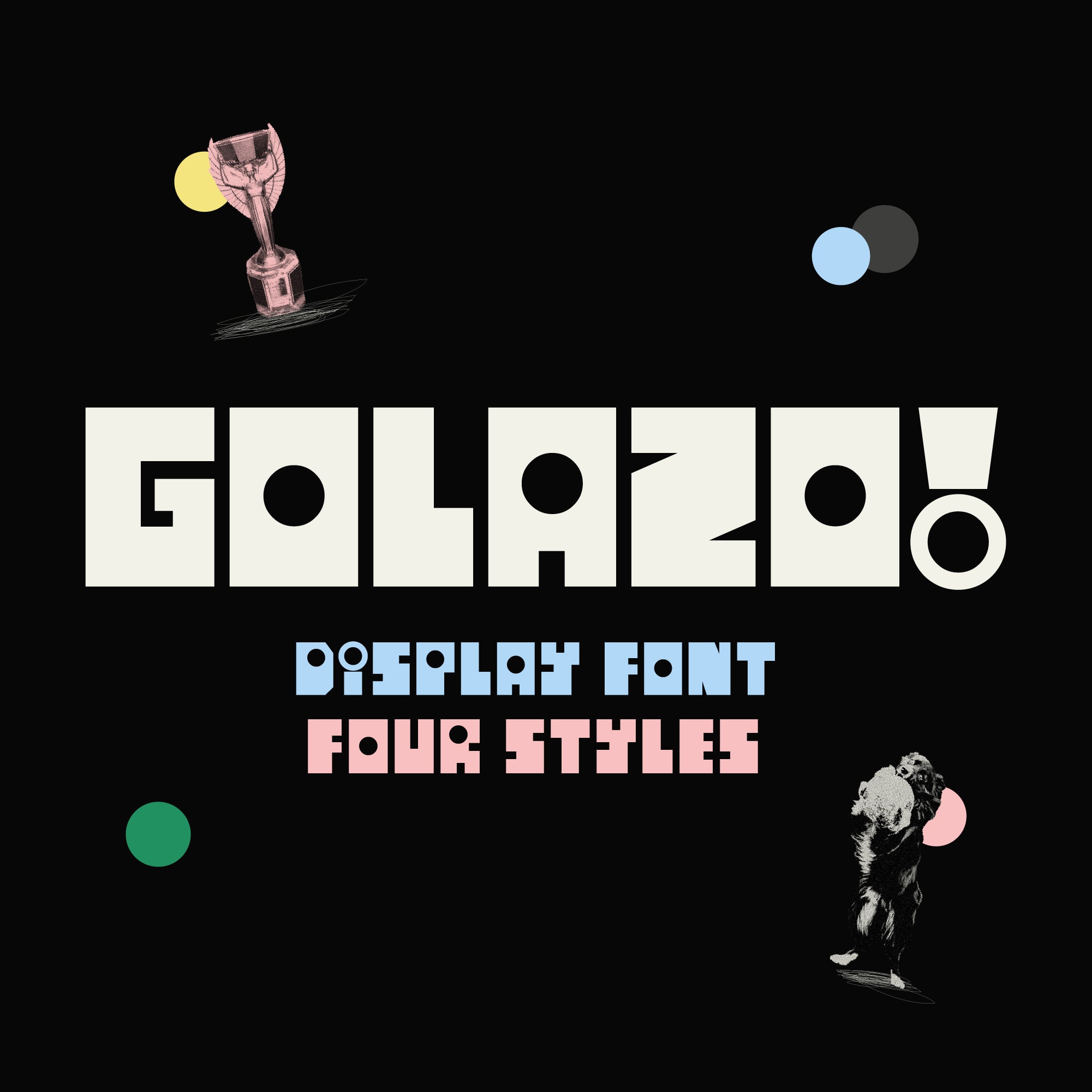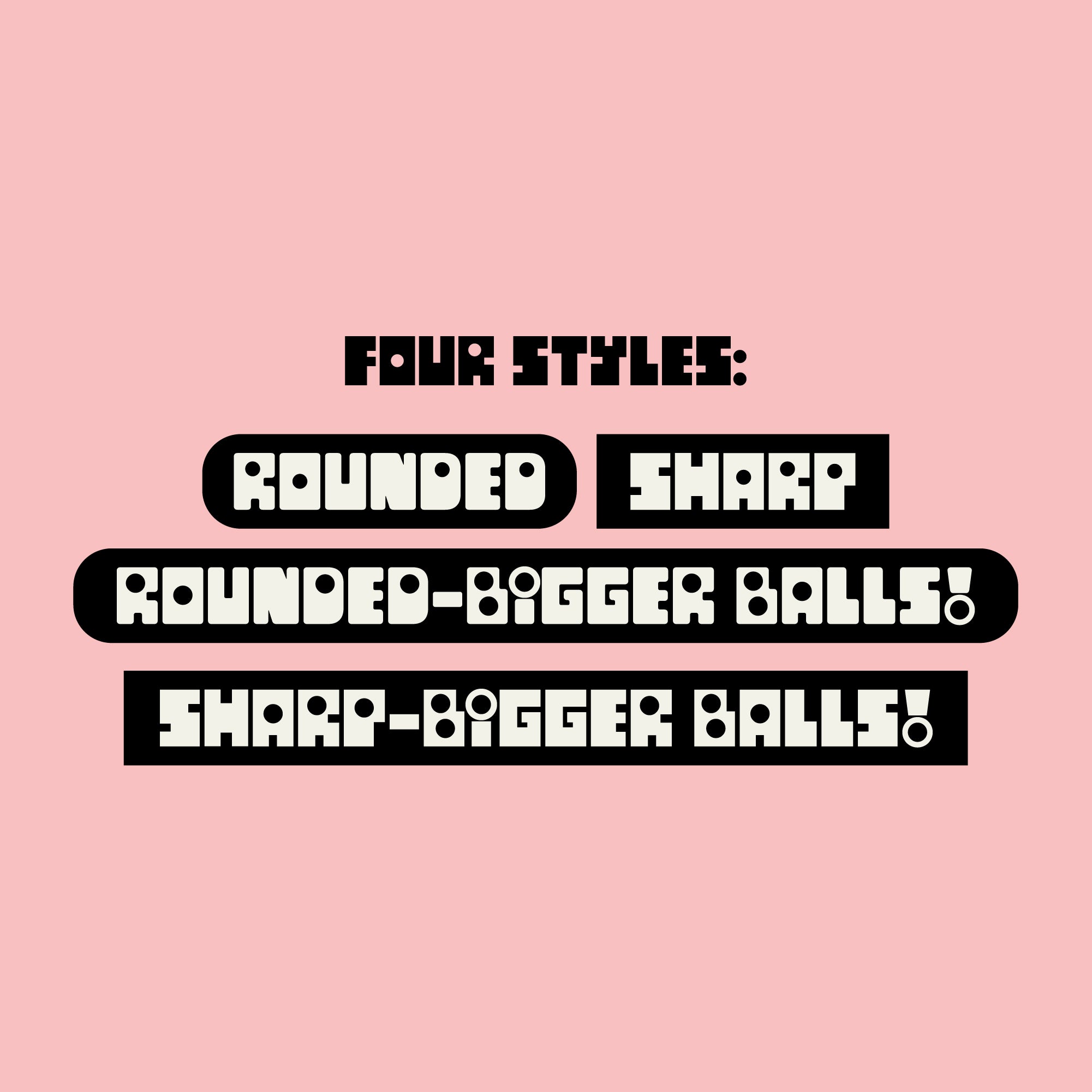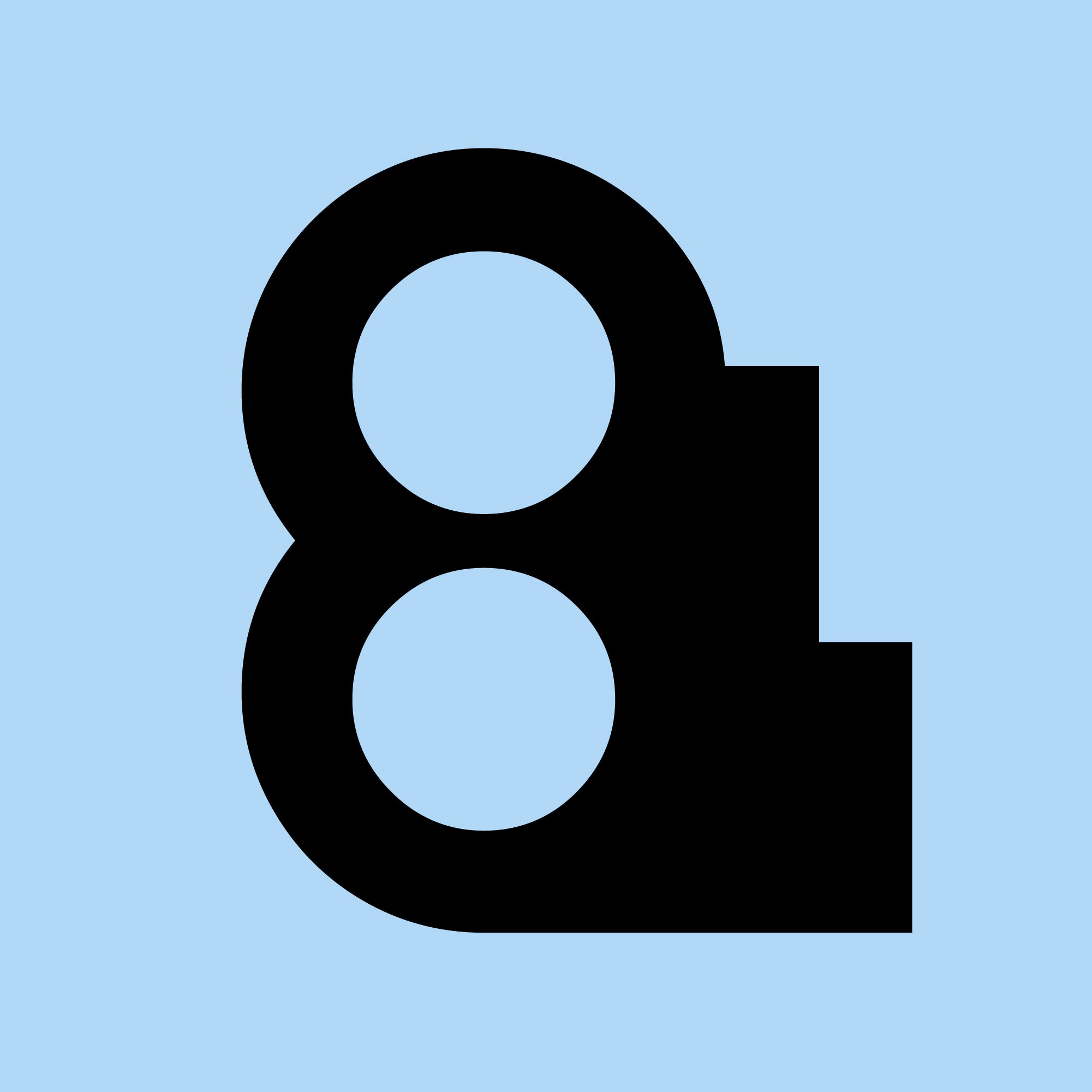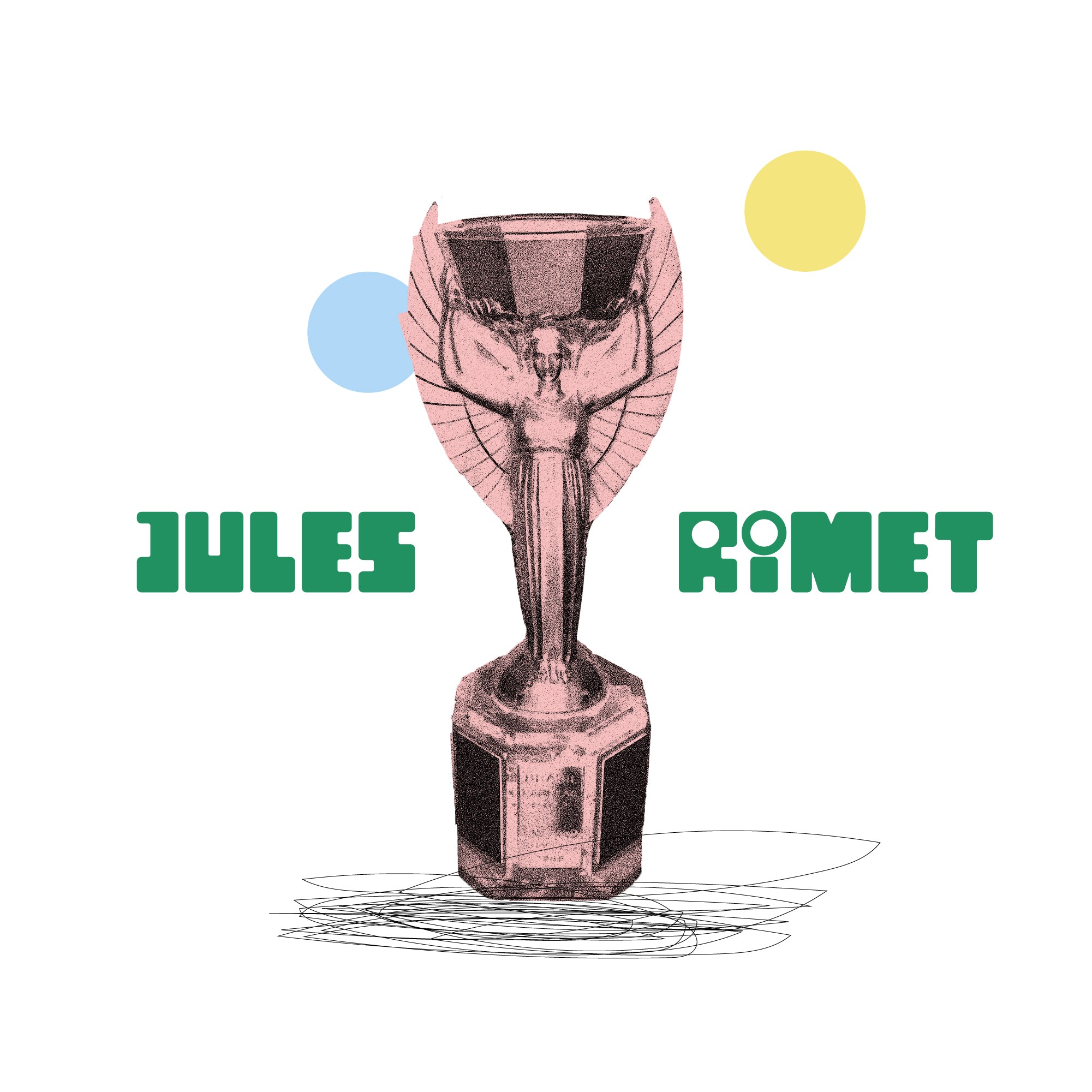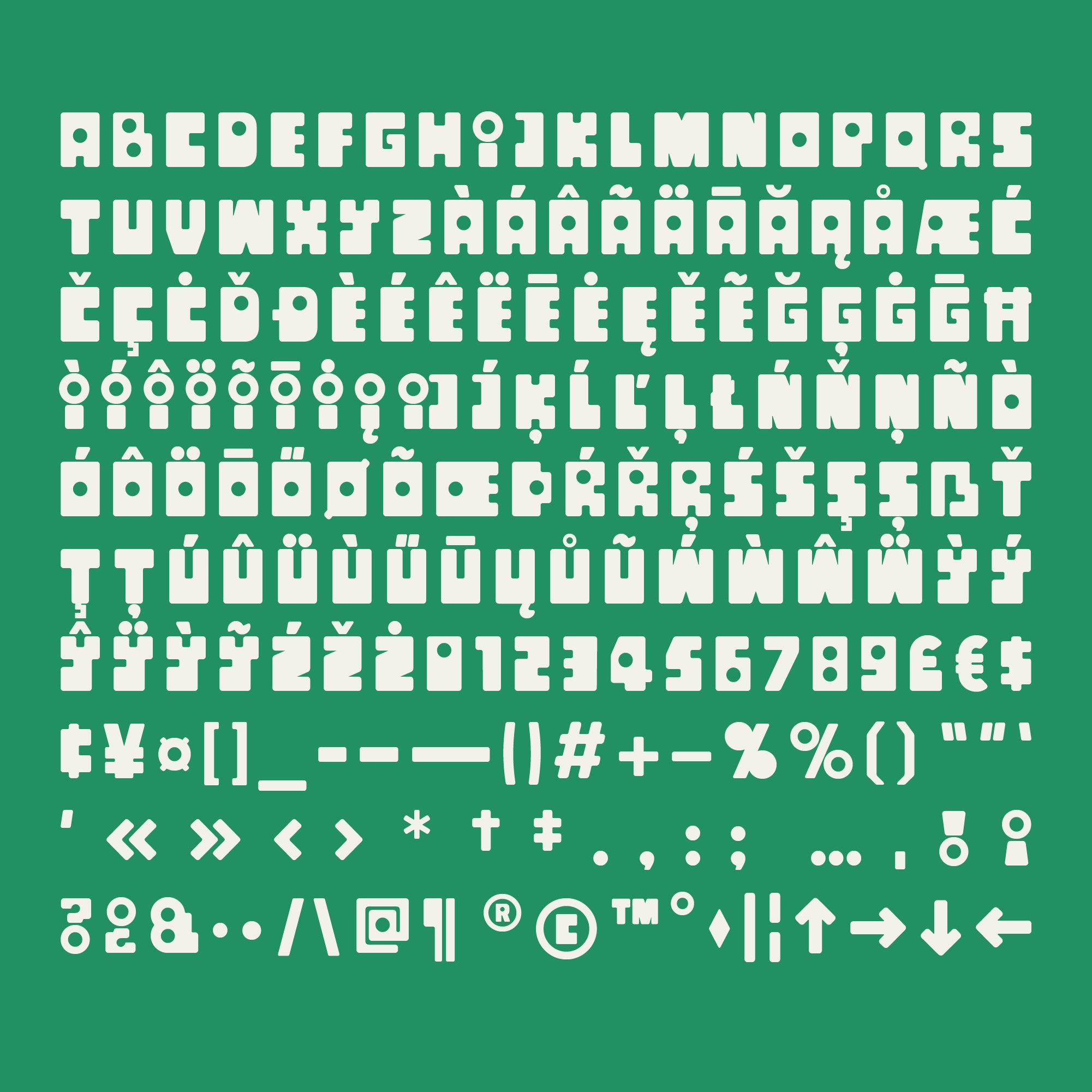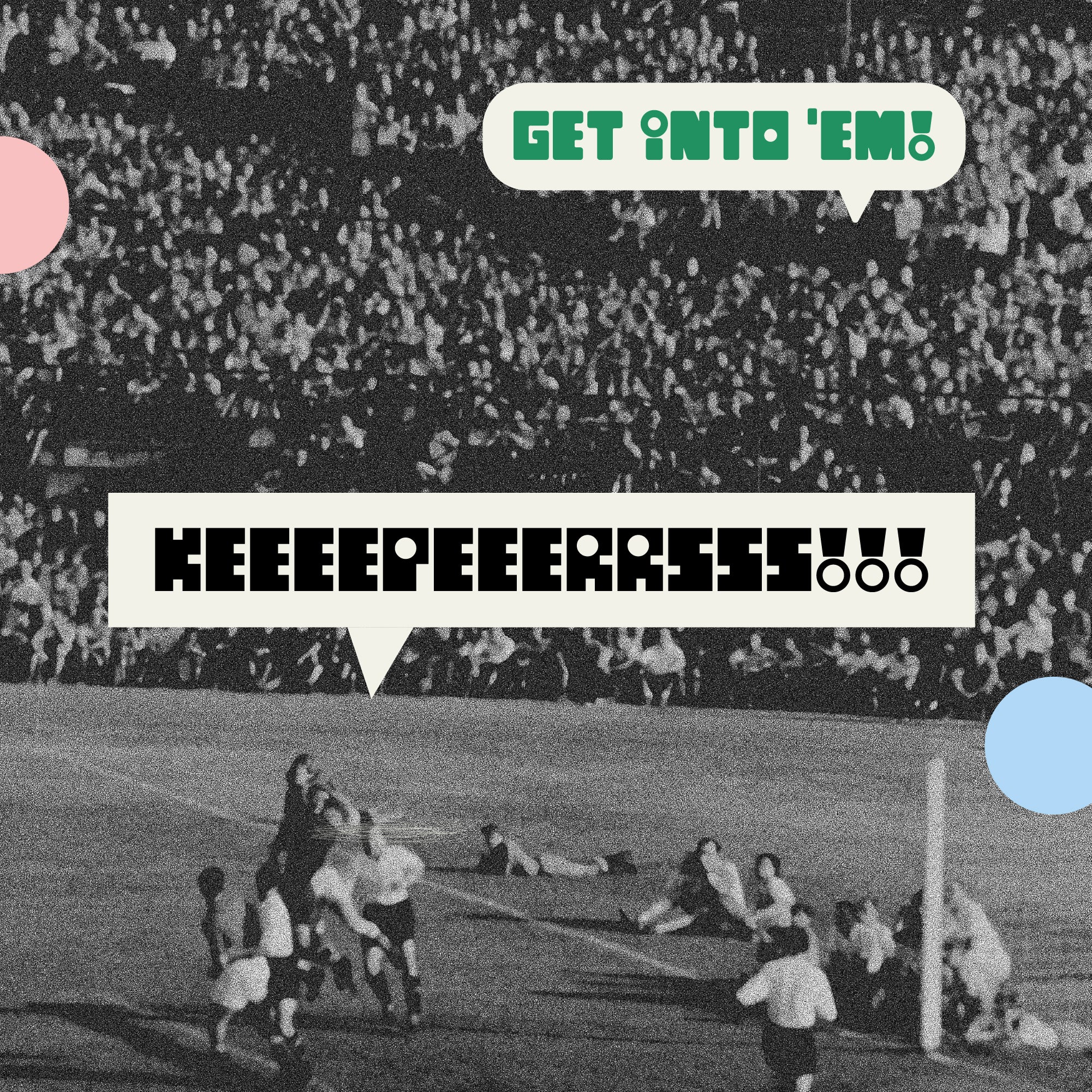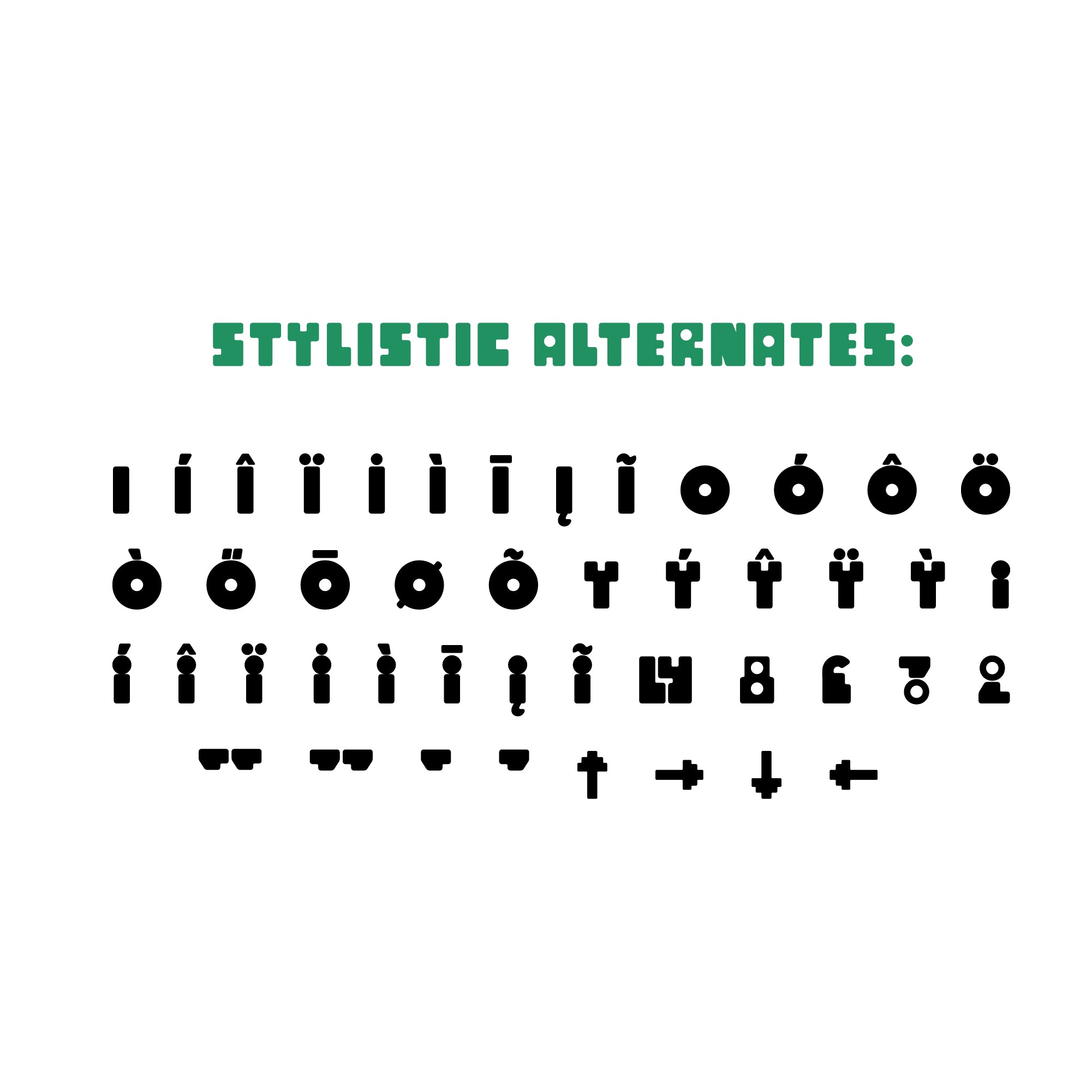
Golazo - Retro Display Font
GOLAZO! is a bold, retro display font with four different styles.
An ode to a bygone era of retro football paraphernalia, GOLAZO! is rooted in the timeless charm of mid-century match-day programmes and hand-painted signs. GOLAZO!’s round counters embody the ball hitting the back of the net.
Font includes:
• Caps
• Numbers
• Punctuation
• Four styles:
• Rounded
• Sharp
• Rounded with bigger counters
• Sharp with bigger counters
• Stylistic alternates
Golazo is a bold, retro display font available in four distinct styles: Rounded, Sharp, Rounded with bigger counters, and Sharp with bigger counters. It includes uppercase letters, numbers, punctuation, and stylistic alternates, embodying the charm of mid-century football design.